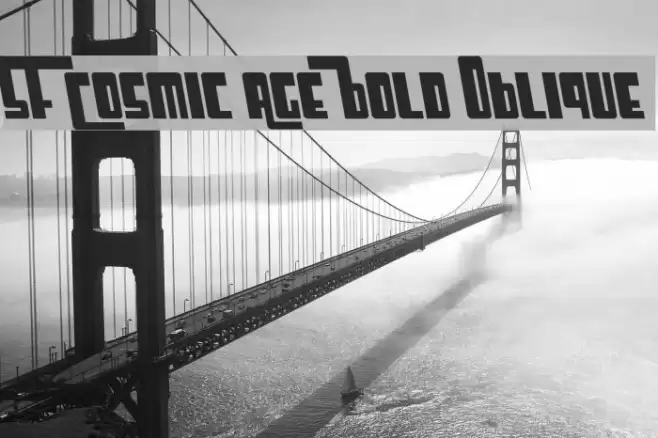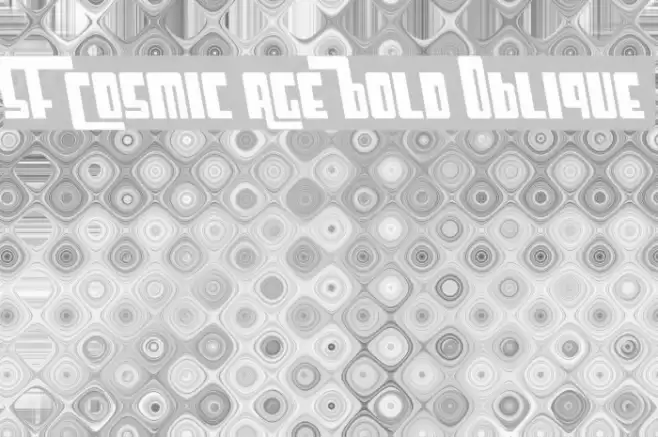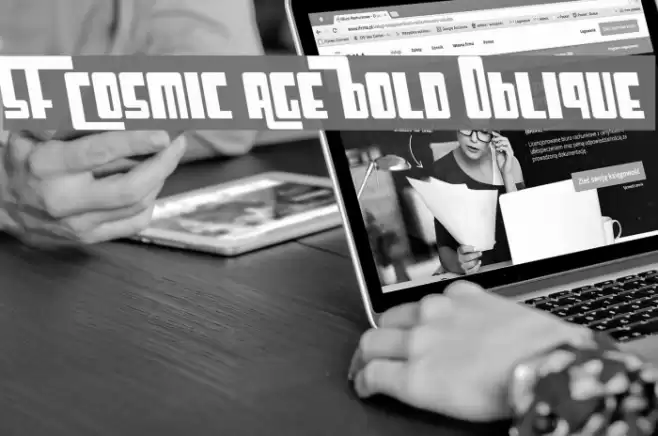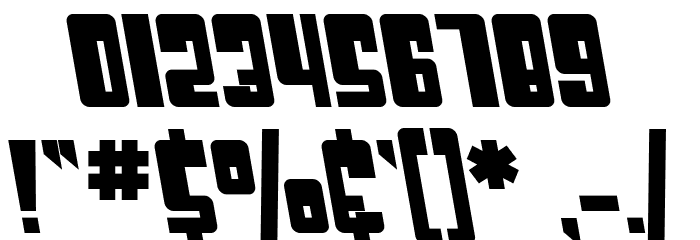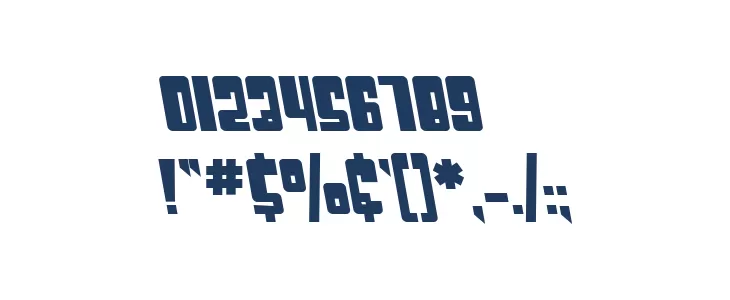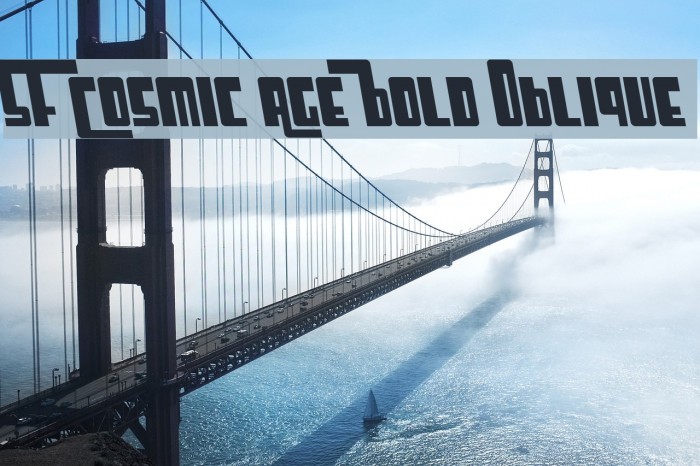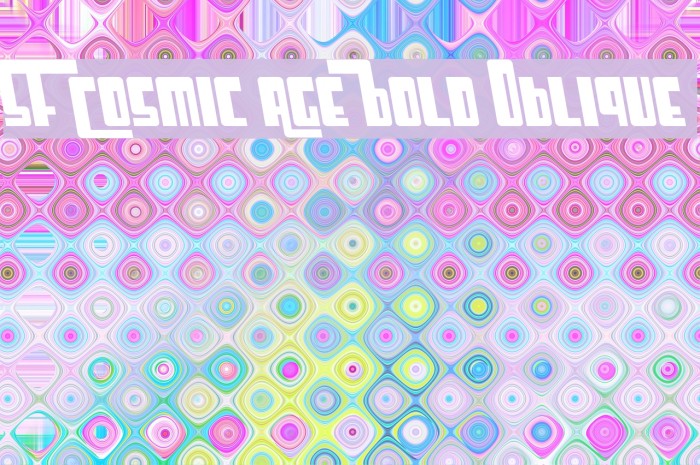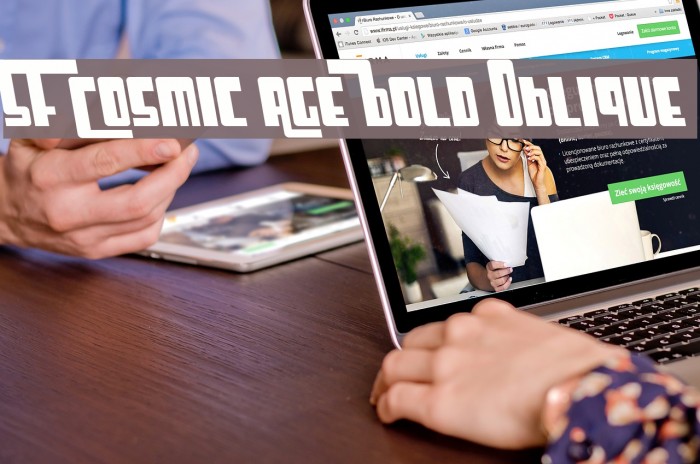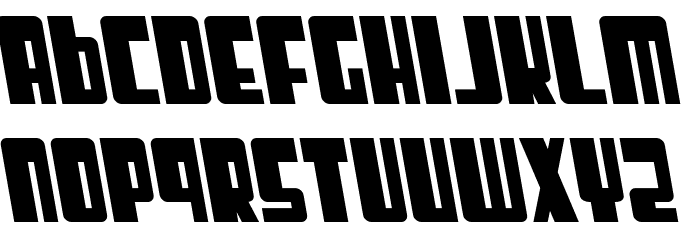
SF Cosmic Age Bold Oblique Font
SF Cosmic Age Bold Oblique Description
This font features a bold and oblique style, characterized by its thick, blocky letterforms with a futuristic and dynamic appearance. The letters are tightly spaced, creating a compact and impactful visual effect. The slanted orientation adds a sense of motion and energy, making it ideal for attention-grabbing designs. The font includes a full set of uppercase and lowercase letters, numbers, and a variety of special characters, all maintaining the same bold and slanted style. Its geometric shapes and sharp angles contribute to a modern and edgy aesthetic.
A bold, oblique font with a futuristic and dynamic style from Sci-fi fonts.
- Proposed Projects: Ideal for sci-fi themed posters, video game graphics, and modern branding projects.
- Character Spacing: Tight